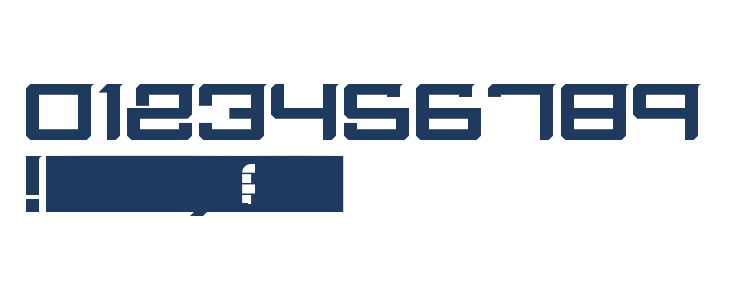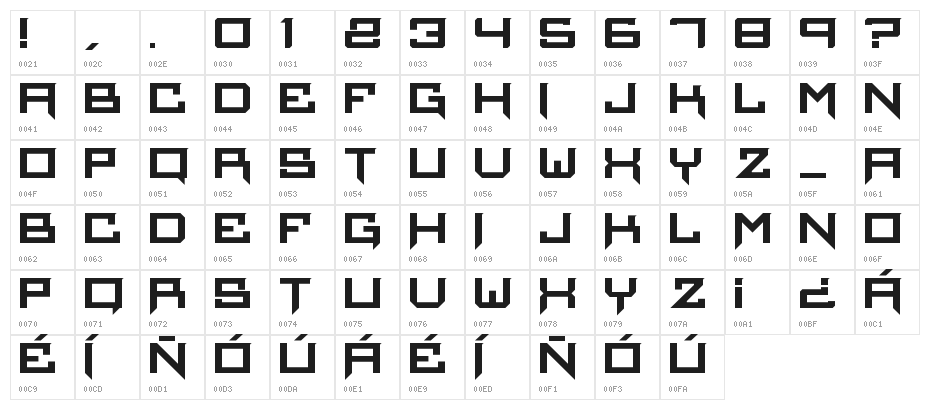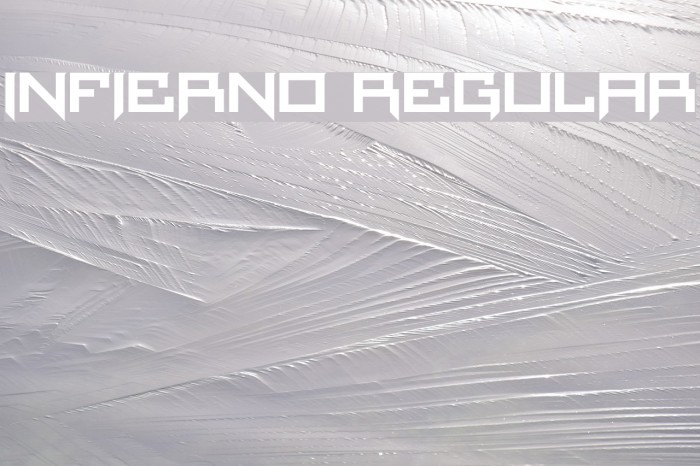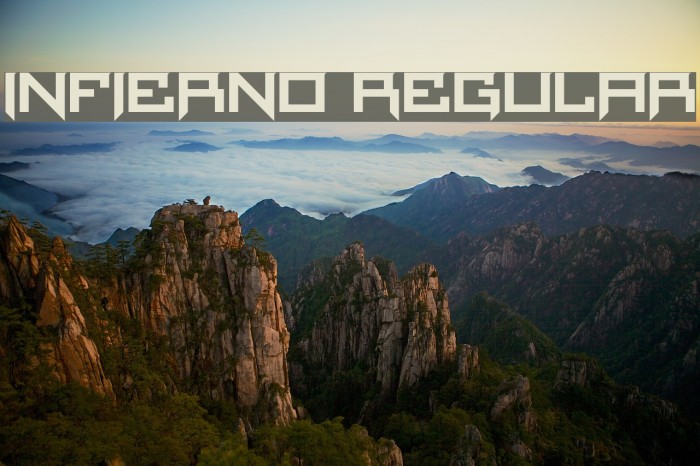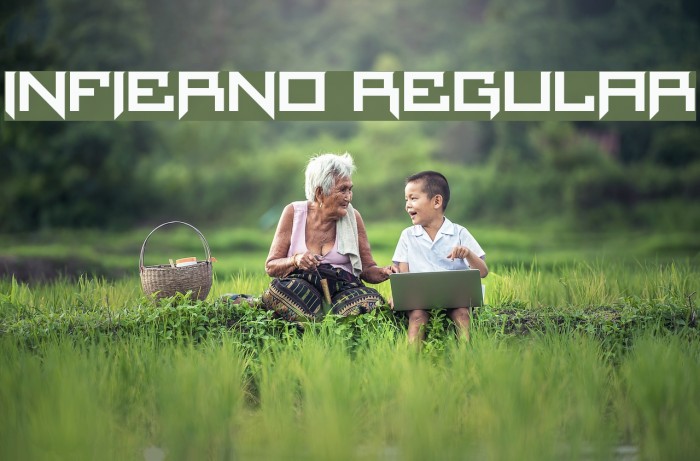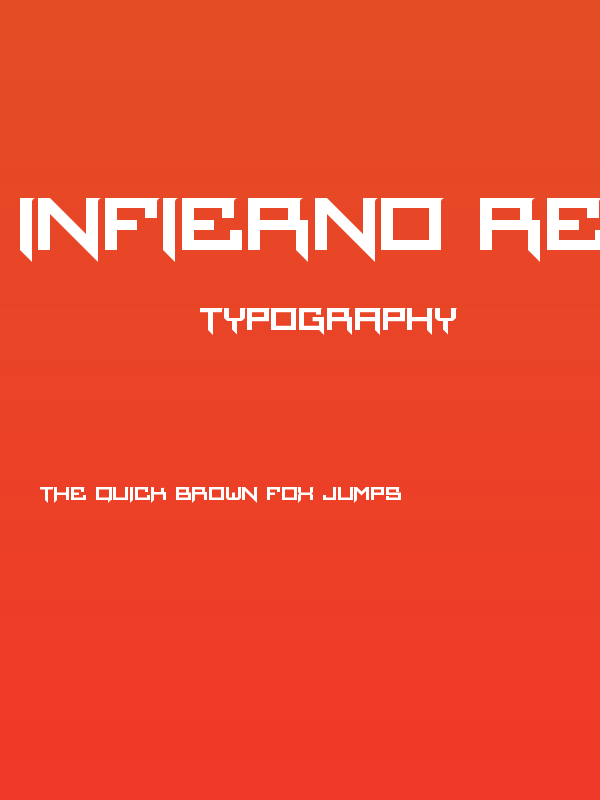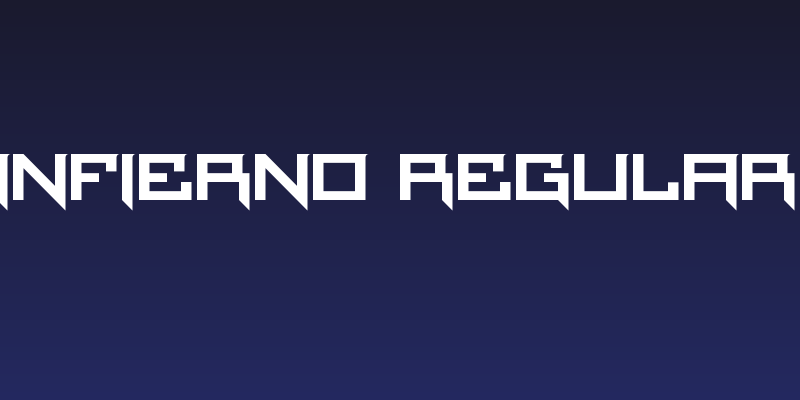
Infierno Regular Font
Infierno Regular Description
This font features a bold, angular design with a futuristic and edgy appearance. The characters are constructed with sharp, geometric lines and pointed edges, creating a sense of movement and intensity. The uppercase and lowercase letters maintain a consistent style, with a strong emphasis on vertical and horizontal strokes. Numbers and special characters are equally bold, fitting seamlessly with the overall aesthetic. The font's unique style makes it stand out, ideal for projects that require a modern and dynamic look.
| Proposed Projects | Ideal for sci-fi themed projects, video game titles, posters, and branding that requires a modern, dynamic look. |